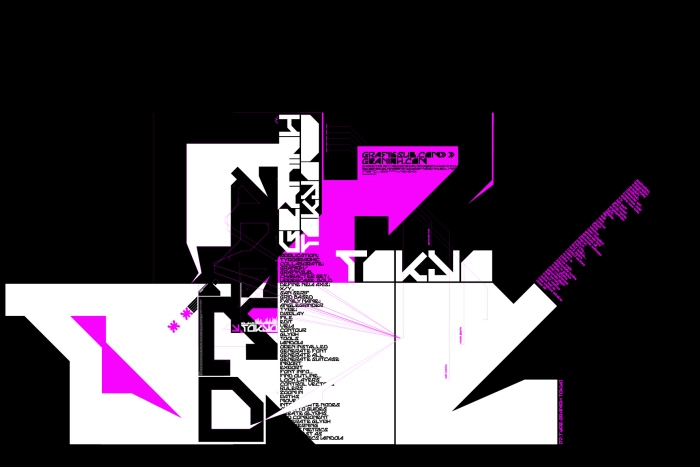
Anglegrinder Light - Anglegrinder is a grid based display font which has a technological presence inspired by code.
Its ideal industry usage is music, art & design, architecture, film, TV and video gaming.
Its name was inspired by its aggressive angular structure.
Anglegrinder Regular - Anglegrinder is a grid based display font which has a technological presence inspired by code.
Its ideal industry usage is music, art & design, architecture, film, TV and video gaming.
Its name was inspired by its aggressive angular structure.
Anglegrinder Bold - Anglegrinder is a grid based display font which has a technological presence inspired by code.
Its ideal industry usage is music, art & design, architecture, film, TV and video gaming.
Its name was inspired by its aggressive angular structure.
07TypeTokyo - Typographic Illustration using Anglegrinder font.
1000 printed Tshirts for Graniph Tokyo.
Also featured in the 3rd edition of Graniph magazine.